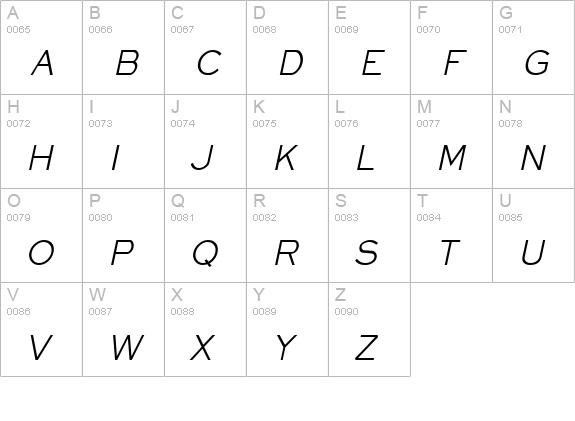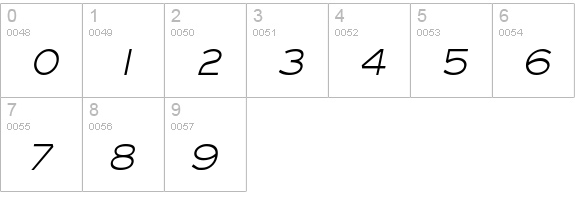
Eye glass Condensed Italic Font Details
Eye glass Condensed Italic is a distinctive, condensed-width, italic variant in the Eye typeface family \xE2\x80\x94 well suited to design and typography projects.
Eye glass Condensed Italic font is a sleek and stylish typeface that exudes sophistication and modernity. Its condensed design gives it a unique flair, making it perfect for adding a touch of elegance to any project. The italicized version of the font adds a sense of movement and dynamism, making it a versatile choice for a wide range of design applications. The Eye glass Condensed Italic font is available for free download at FontsMarket.com, making it easily accessible to designers and creatives looking to enhance their projects with a touch of class. Whether you're working on branding materials, editorial layouts, or web design, this font is sure to make a statement and leave a lasting impression. Download Eye glass Condensed Italic today and elevate your designs with its sleek and sophisticated aesthetic.